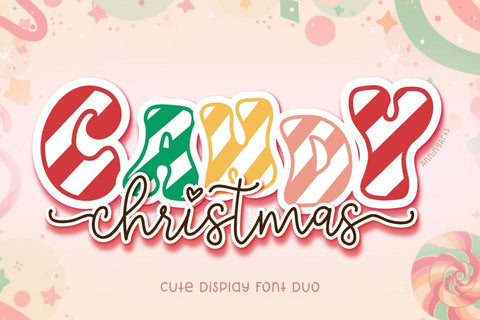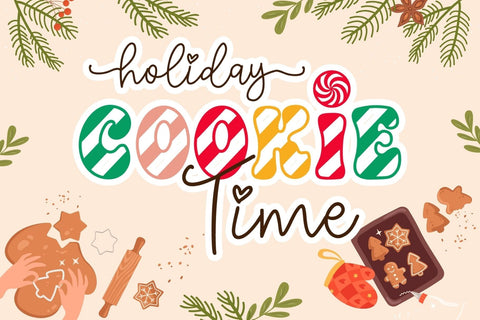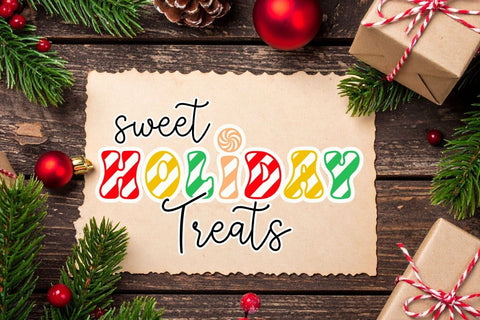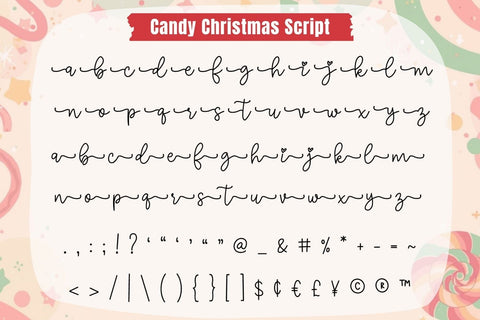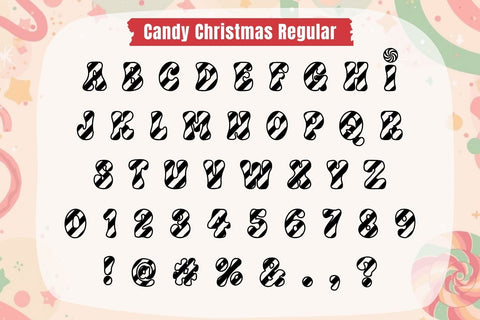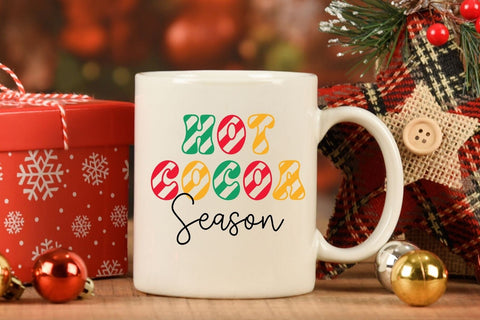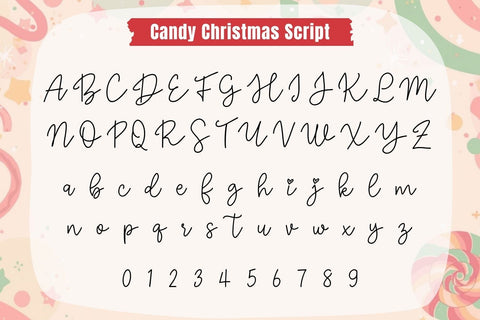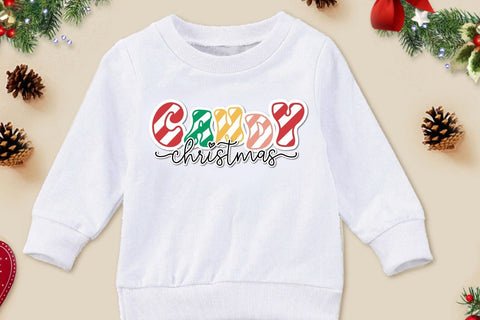
Candy Christmas - Sweet Display & Script Font Duo
Candy Christmas is a cute and playful display font duo inspired by holiday candy canes and sweet festive treats.
This duo includes a bold candy-striped display font and a matching handwritten script with heart details — perfect for Christmas cards, gift tags, party prints, and cozy holiday crafts.
Add a touch of sweetness to your designs — from “Hot Cocoa Season” mugs and “Cookie Time” signs to joyful stickers and t-shirt prints.